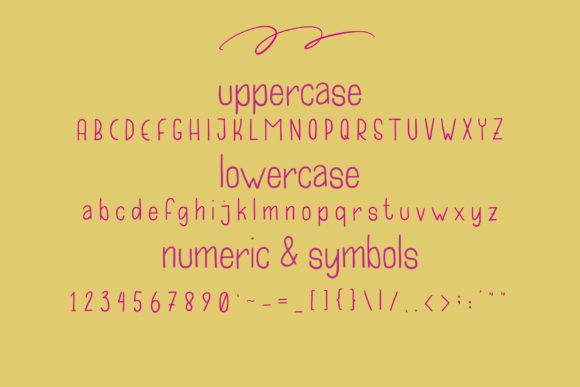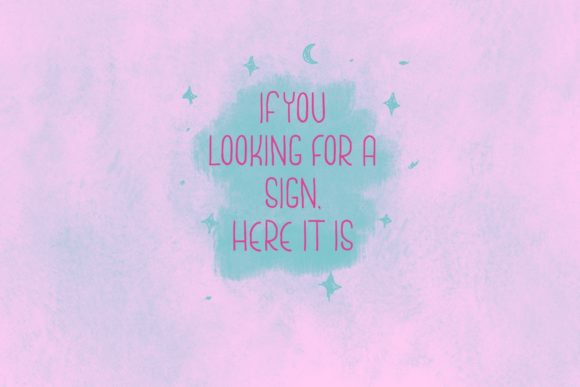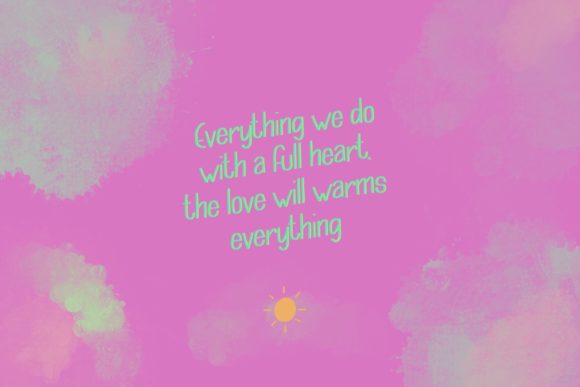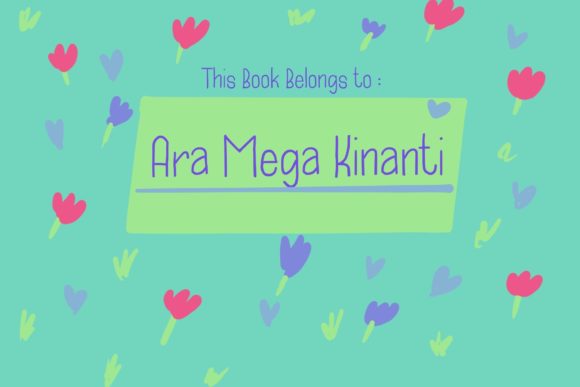
About First Saturday Font
First Saturday is a cute and simple lettered handwritten font that can be used for all chalkboard quotes or teaching material! Its authentic look will add a personal and realistic feel to your designs.